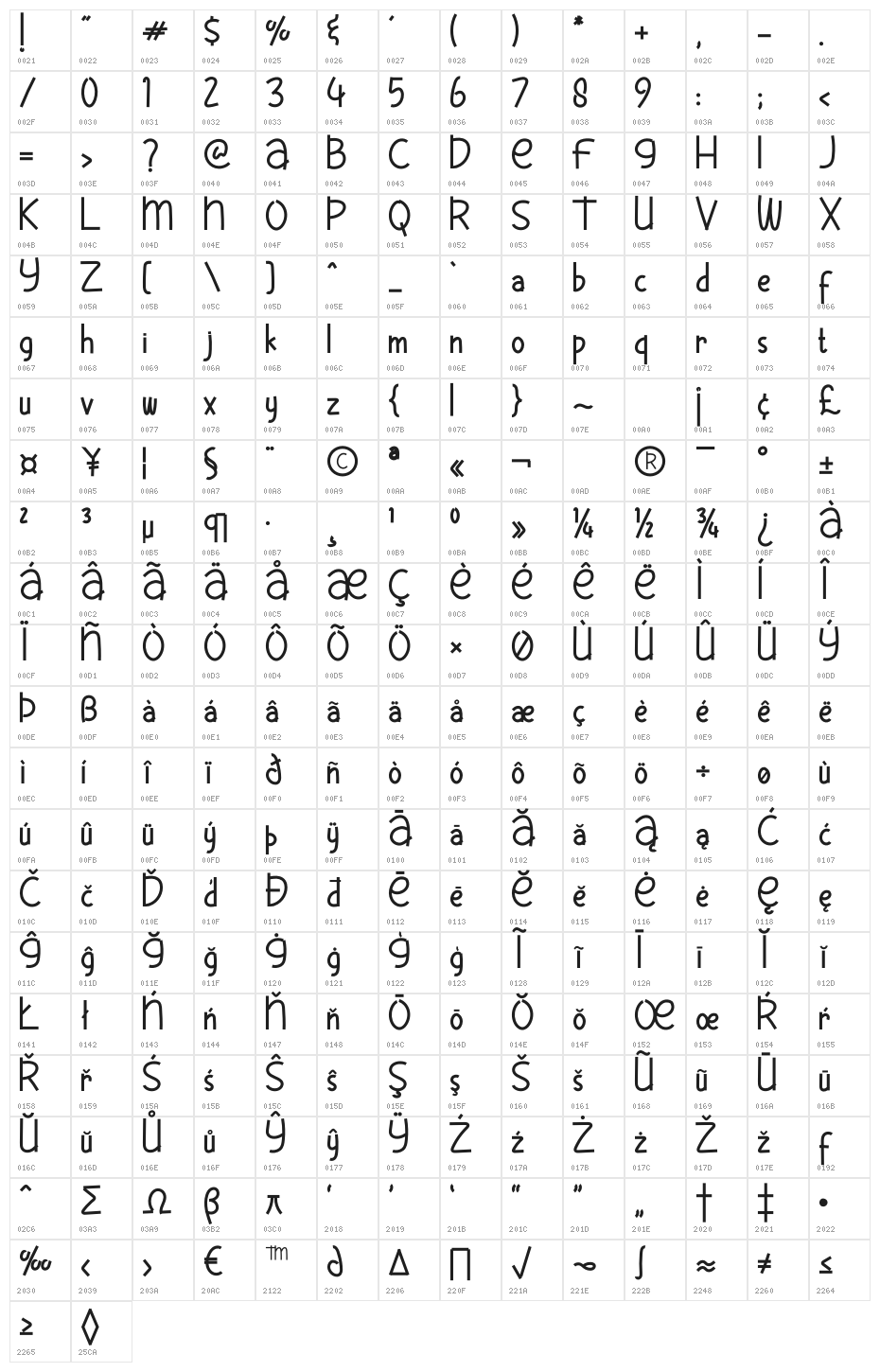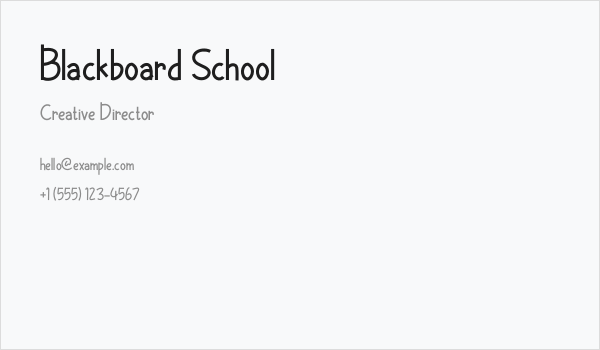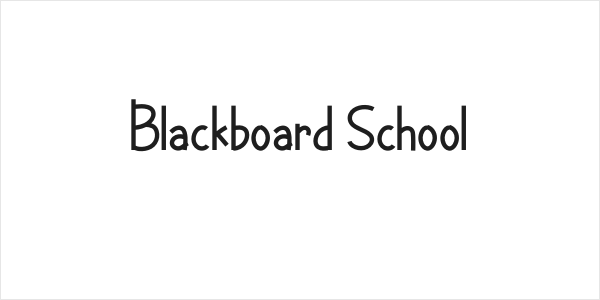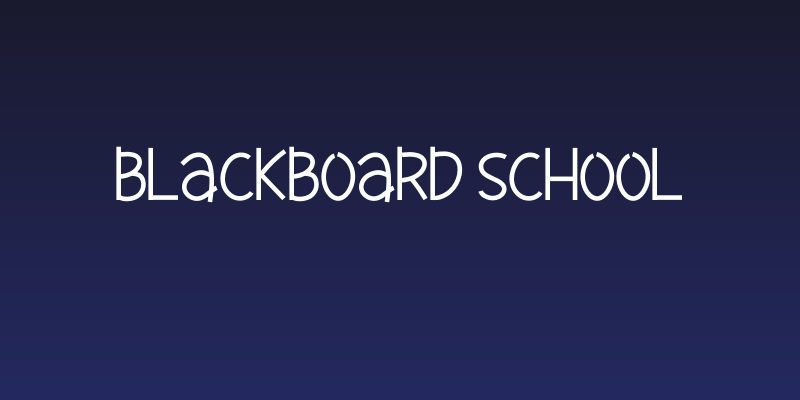
Blackboard School Font
Blackboard School Description
This font features a playful and informal style, reminiscent of handwriting on a chalkboard. The characters are slightly irregular, adding a whimsical and approachable feel. The uppercase and lowercase letters are well-balanced, with rounded edges and a consistent stroke width. Numbers and special characters maintain the same playful aesthetic, making the font versatile for various uses. The overall design is clean and legible, suitable for both digital and print media. Its unique style makes it stand out, while still being easy to read.
| Proposed Projects | Ideal for educational materials, children's books, playful branding, and casual invitations. |